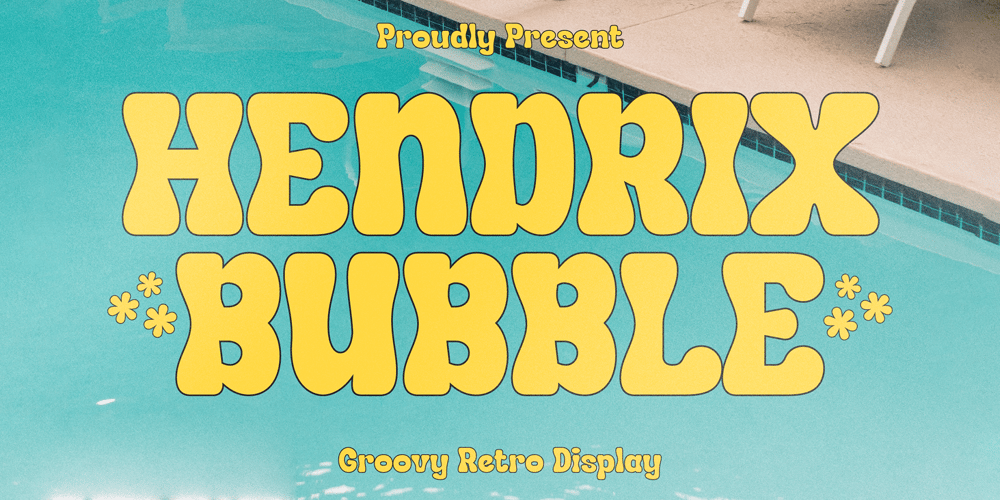
Hendrix Bubble Font Family was designed by Heru Utama Putra and published by Letterena Studios. Hendrix Bubble contains 2 styles and family package options. Hendrix bubble is a modern and classic display font with its own unique style and modern looks.This typeface is perfect for an elegant & bold logo, book or movie title design, fashion brand, magazine, clothes, lettering, quotes, and so much more.